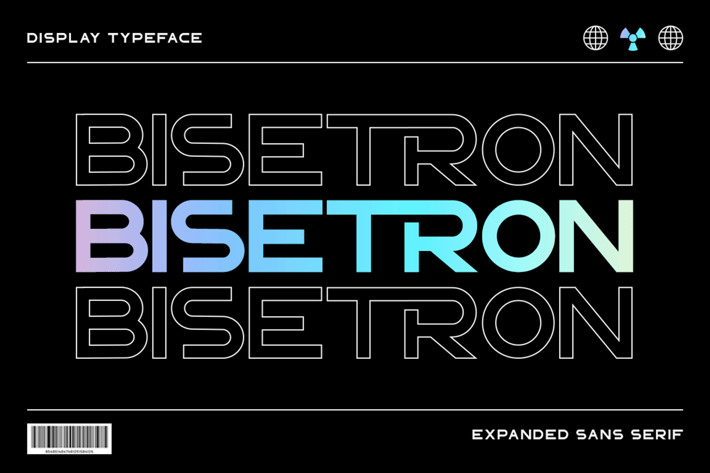
Bisetron - Business Font
Bisetron is a bold sans serif font, featuring expanded characters. It may effortlessly be matched to both formal and informal designs, so employ it confidently and you will love the outcome.